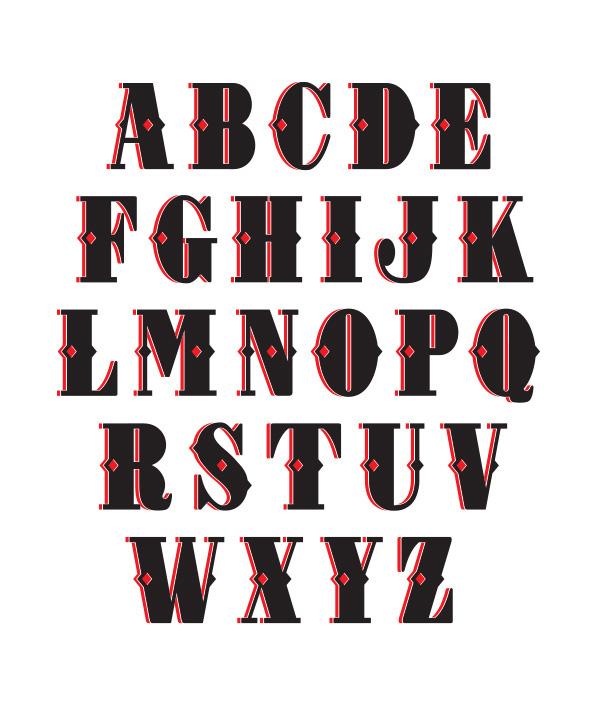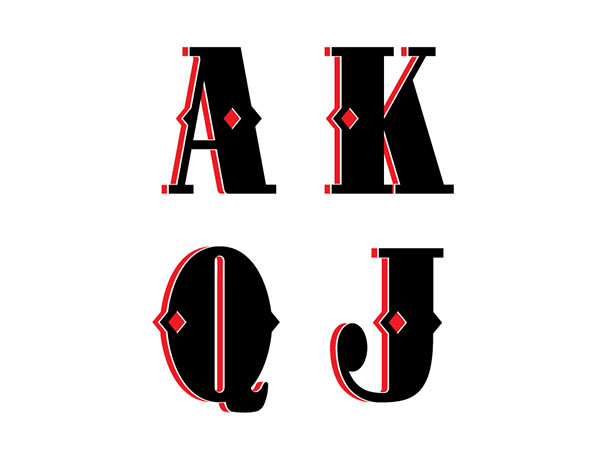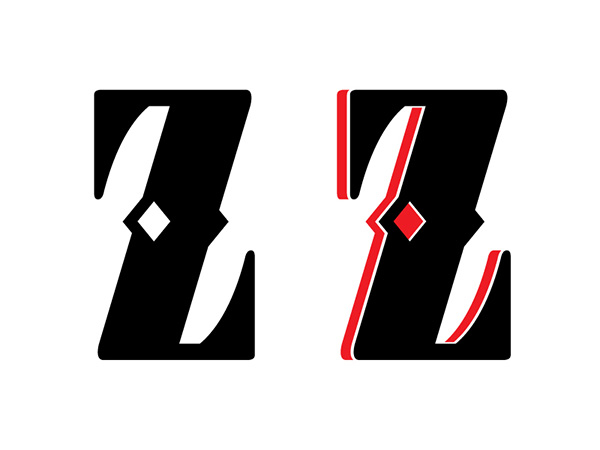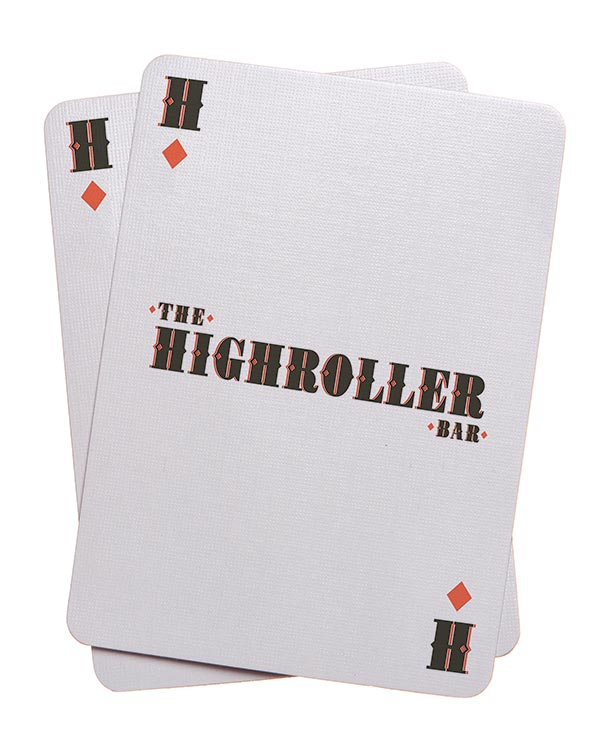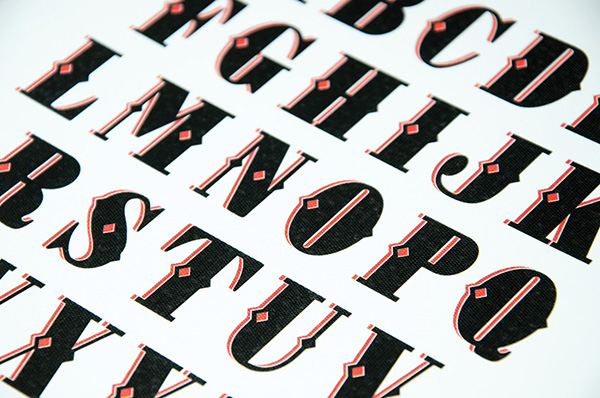
Highroller
This chromatic typeface was adapted from an existing vintage wood-type collection and can be applied both digitally and by letterpress as two plates.
Designer: Ezra La Vin
Publisher: Ezra La Vin